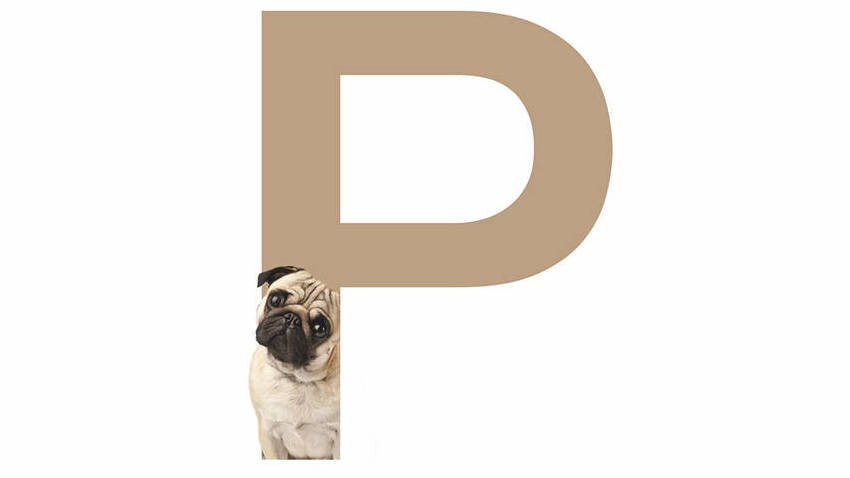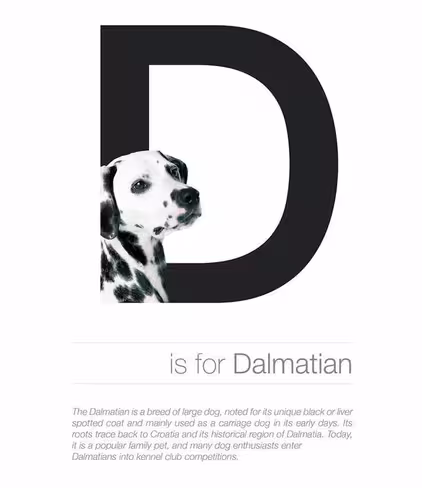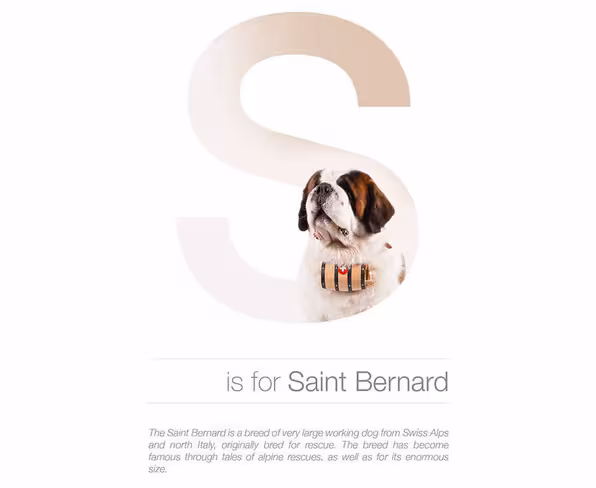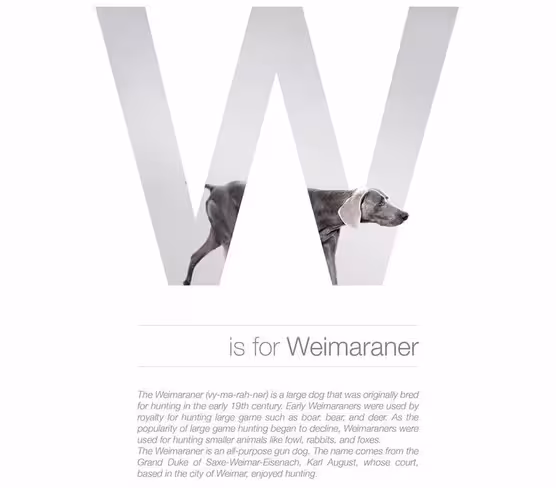
When dogs and fonts come together, magic happens
Dogs are awesome! And sometimes they can also make for some great design.
Romanian graphic designer Andrei Clompos created a project called the “Dog Alphabet,” which brings man’s best friend and man’s taste for sans-serif fonts to form a helpful and informative alphabet.
The dogs pop dynamically out of their letter, selected, of course, by their names. Each letter also includes a small paragraph about the dog breed, which is chock full of factoids.
Some dogs look mighty regal.
Others look quite goofy.
But all of them look awesome.